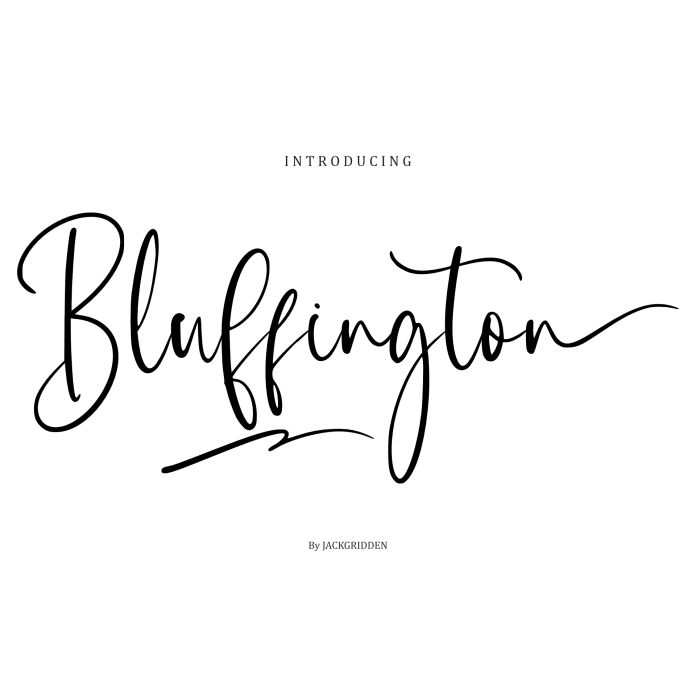
Bluffington is an elegant and versatile script font, designed for those who seek sophistication with a touch of modern flair. With its flowing curves, delicate ligatures, and stylish swashes, Bluffington brings a unique charm to any project. Whether you’re designing invitations, logos, branding, or packaging, this font’s luxurious style makes it a perfect choice for both individual and professional use.